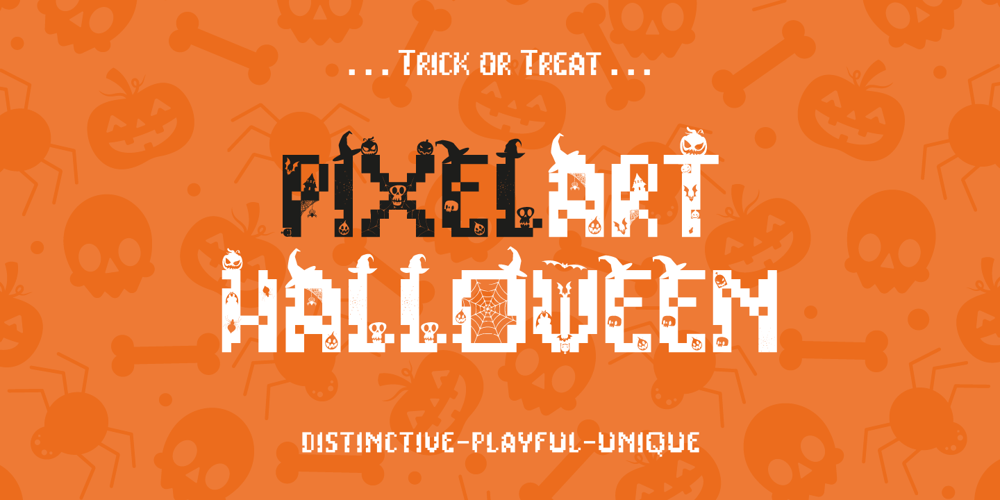
Pixelart Halloween Font Family was designed by Alde Saputro and published by Aldedesign. Pixelart Halloween contains 2 styles and family package options. Pixelart Halloween is a crafty and distinctive decorative font. With a combination of pixel-art and scary horror themes, this font has the potential to bring each of your creative ideas to the highest level! This font is PUA encoded which means you can access all of the glyphs and swashes with ease!